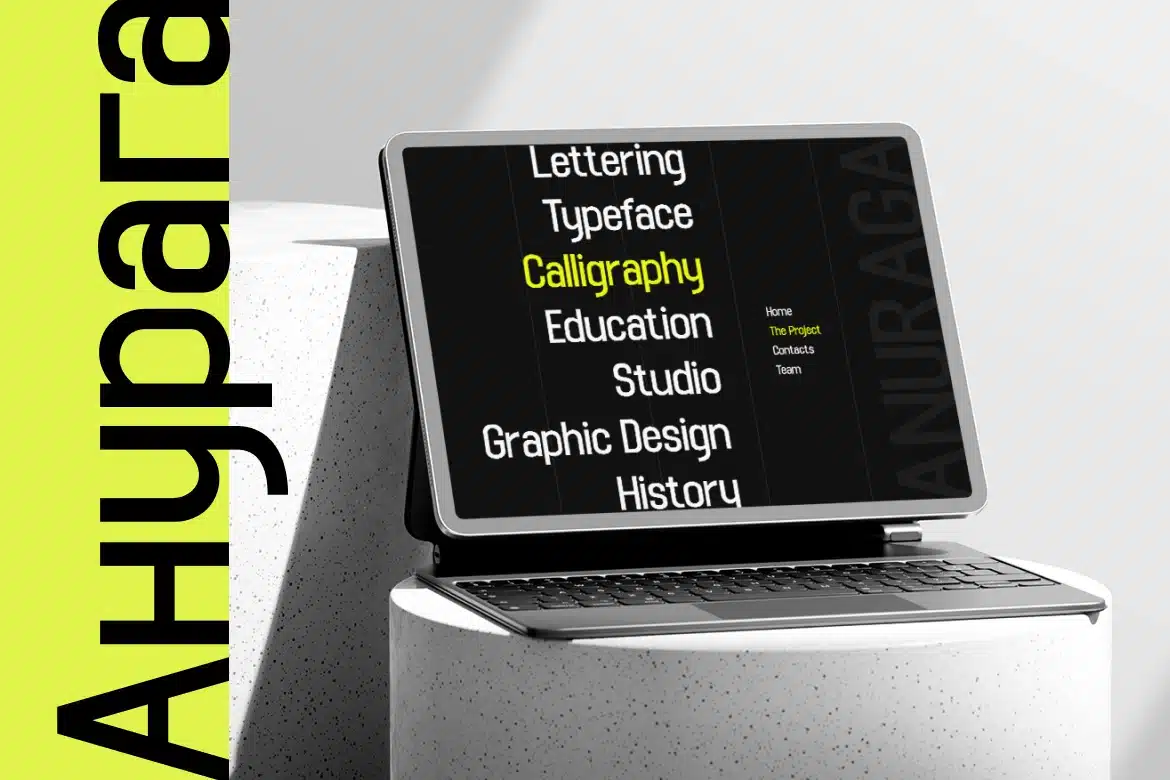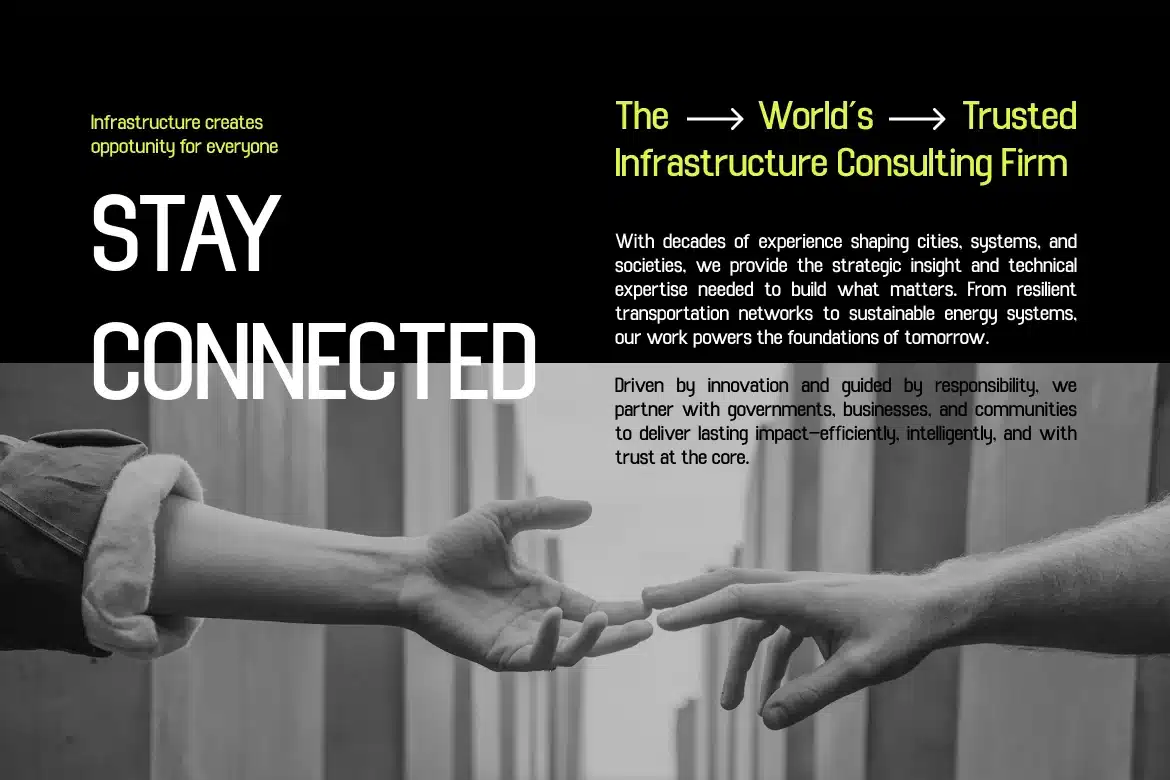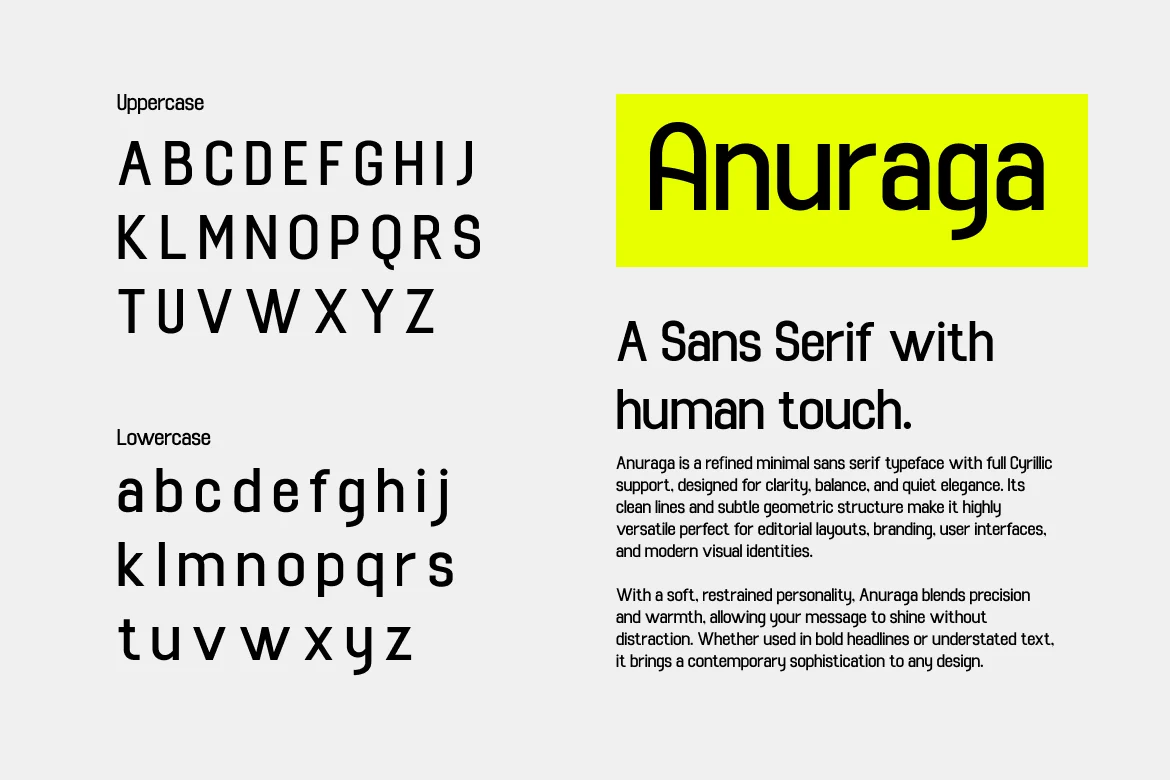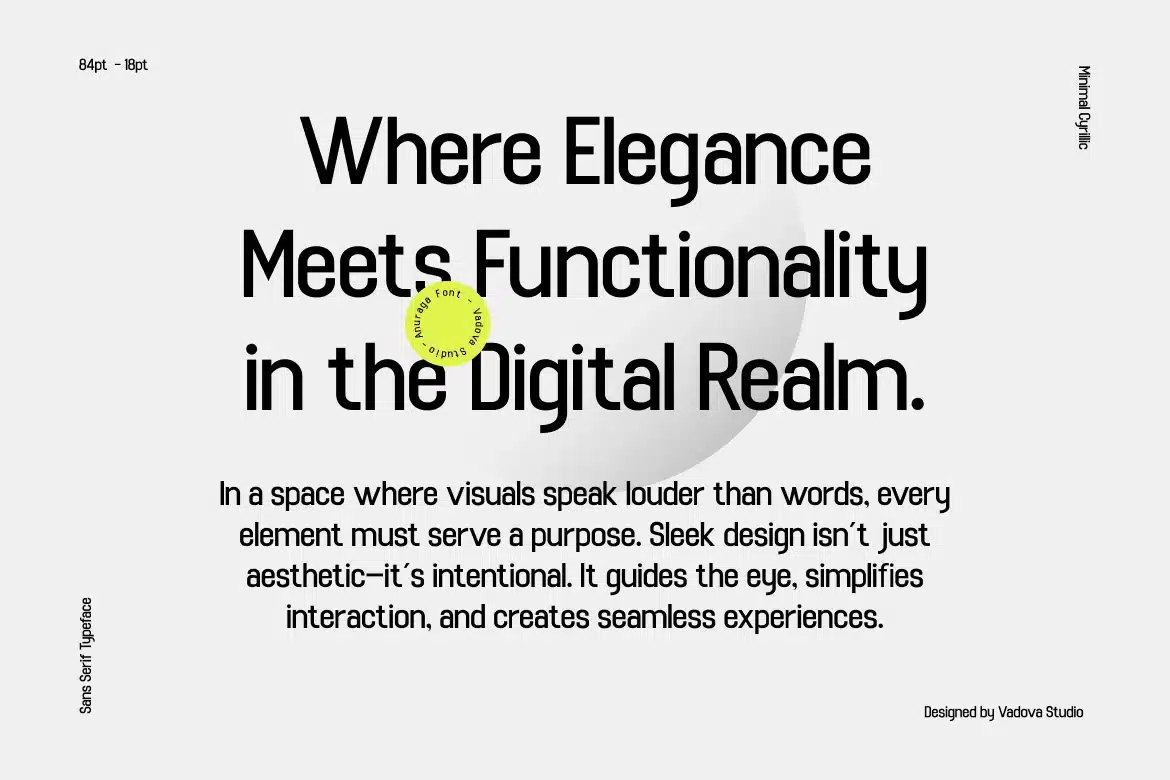
Anuraga Minimal Cyrillic Sans Serif Font
Anuraga is a modern rounded sans-serif typeface that combines clean geometry with soft, approachable curves. Its playful yet professional tone gives it the perfect personality for brands looking to strike a balance between tech-forward precision and human-centered warmth. This font is built for designers who want clarity without coldness, and modernism without rigidity.
The letterforms are distinctly geometric and rounded, lending the typeface a unique softness that works well in high-contrast modern settings. Its sans-serif structure keeps everything grounded in simplicity and legibility, while the curve treatment adds personality and rhythm. Anuraga is the go-to typeface when you want to look bold and clean, but also feel human and trustworthy.
Main Features
- Uppercase & Lowercase characters
- Numeral & Punctuations
Anuraga Suitable for Creative agency branding, Modern tech packaging, Educational platforms, Youth magazine covers, Neo-grotesque editorial layouts, Multilingual design projects, Digital startup pitch decks, Streaming or podcast thumbnails, Futuristic app interfaces, UI-heavy mobile apps, Social media quote designs, Clean product catalogs, Tech-infused coffee shop menus, Minimal workspace branding, and Bold identity systems.